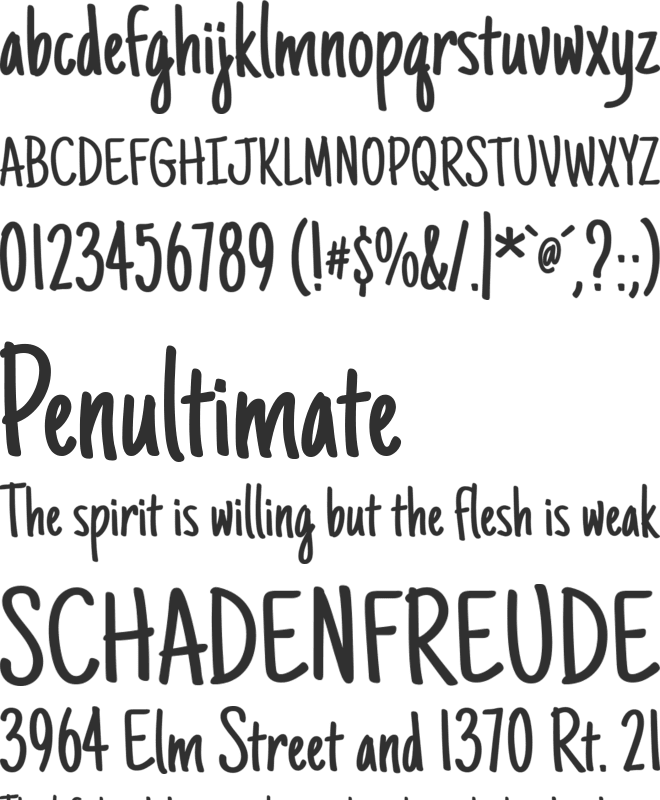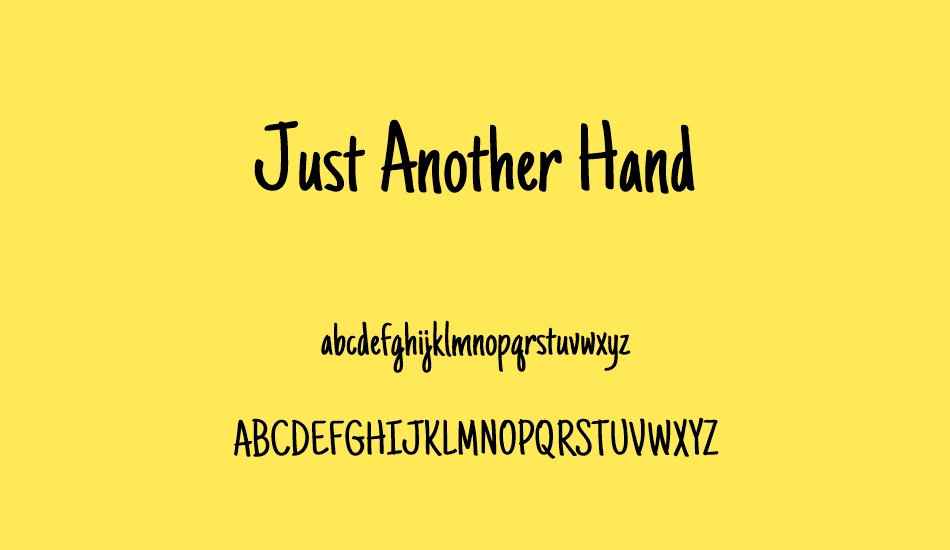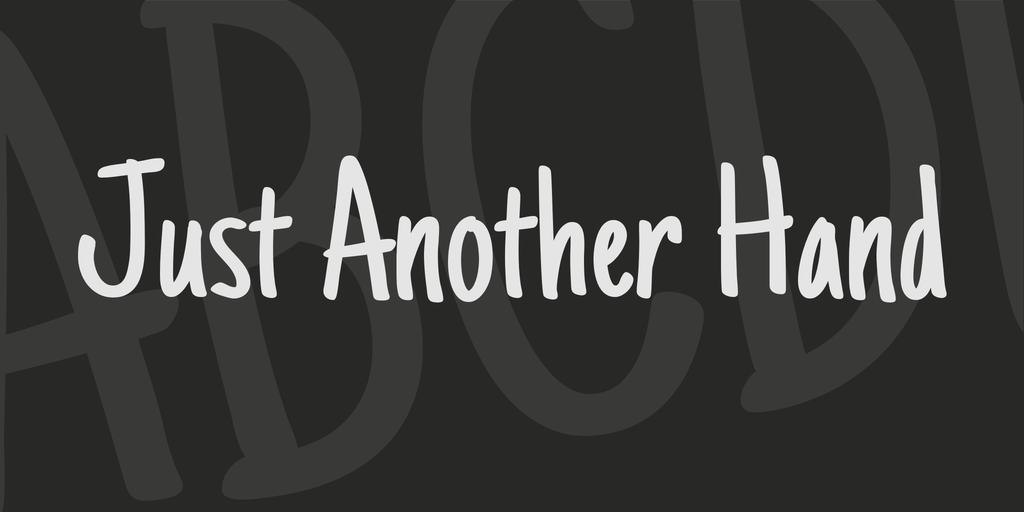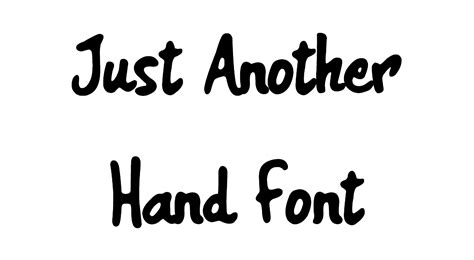
Just Another Hand Font
Just Another Hand Font - Learn more about the font's features,. A narrow brush drawn handwriting font, inspired by the handwriting of the designer's high school days.